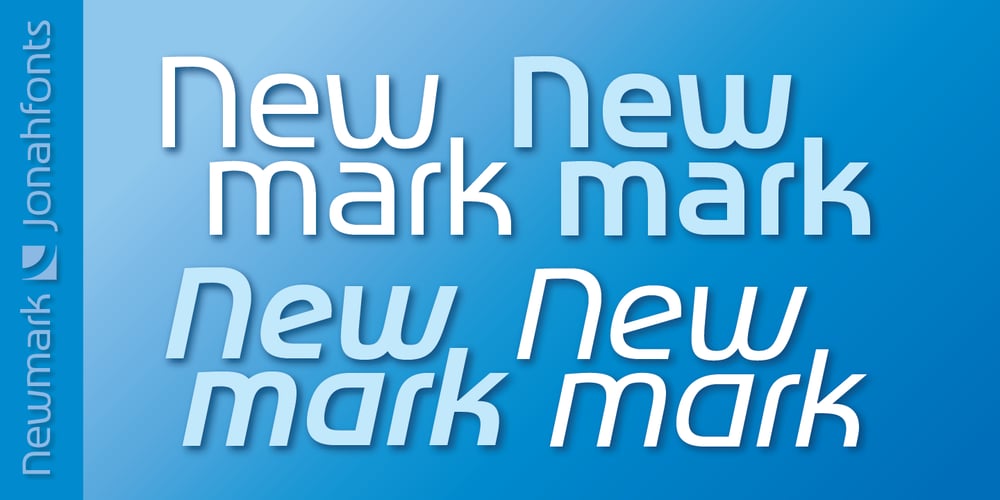
Newmark Font Family was designed by John Nahmias and published by Jonahfonts. Newmark contains 3 styles and family package options. Very suitable for a wide range of applications including texts, packaging and headings.